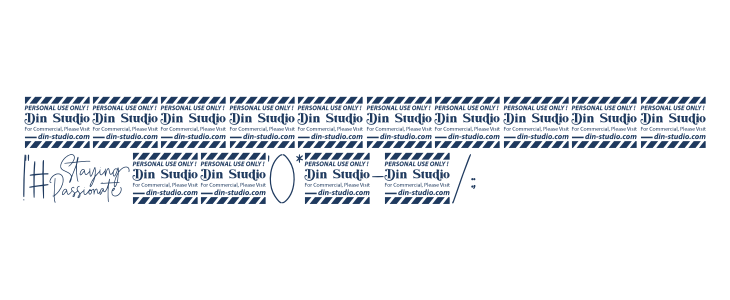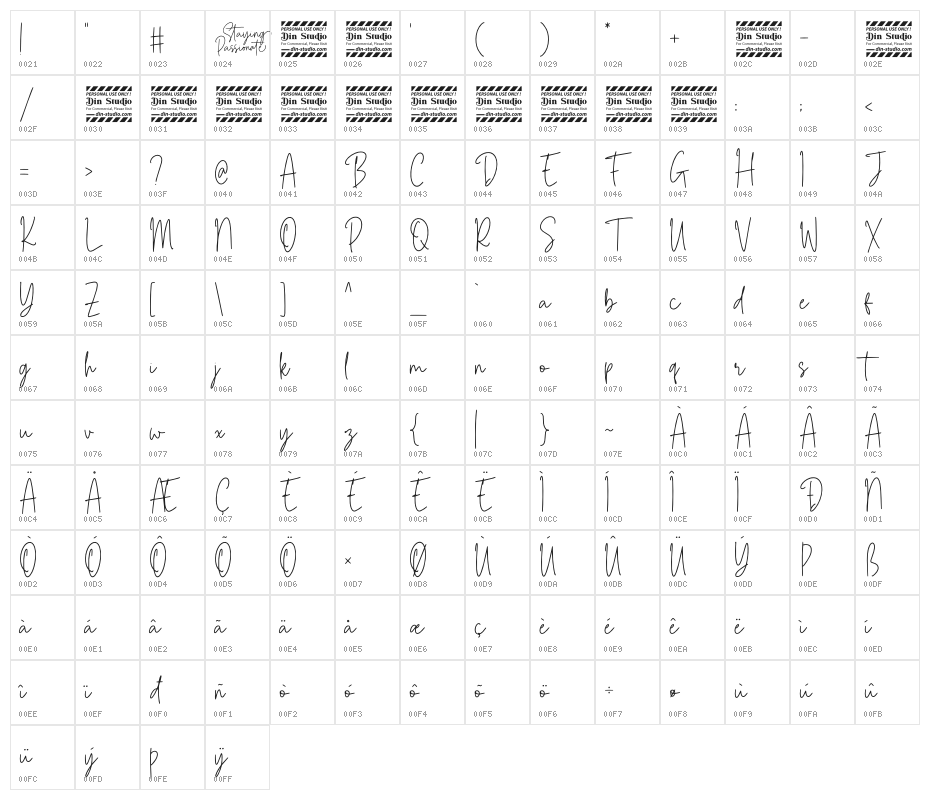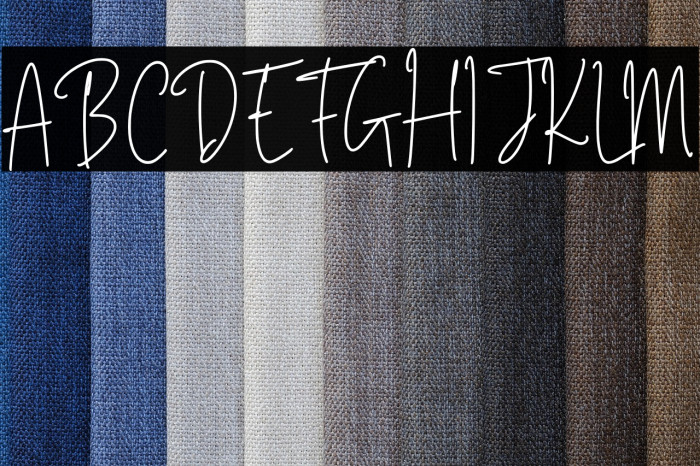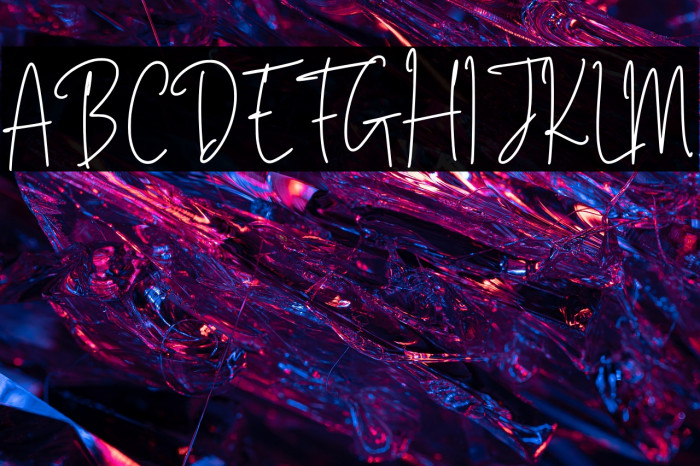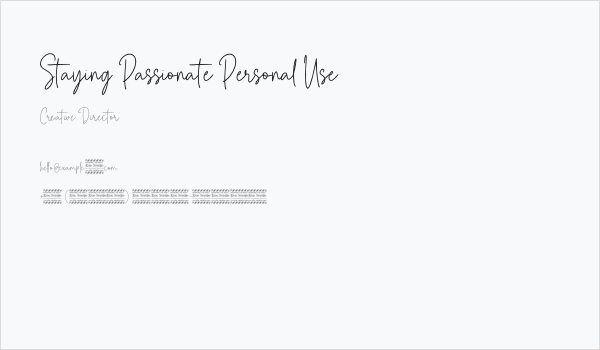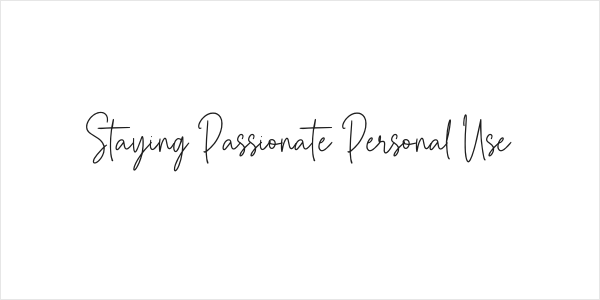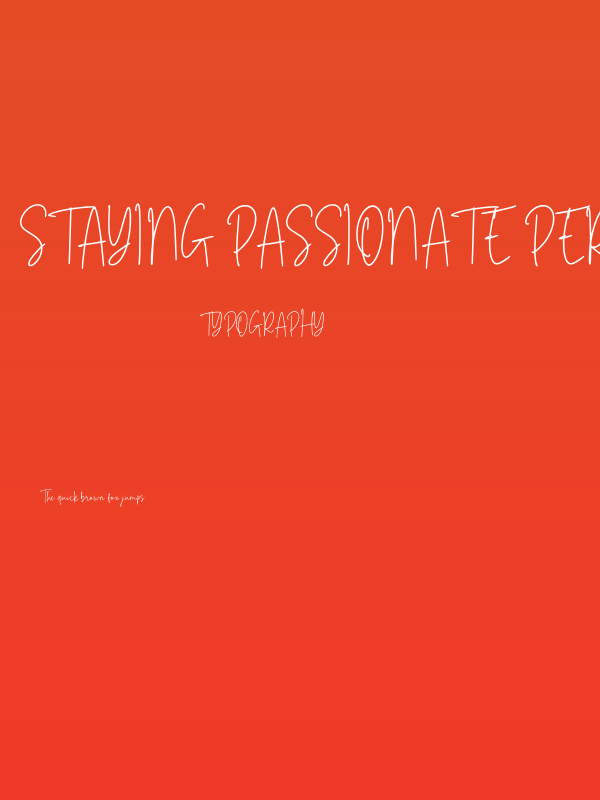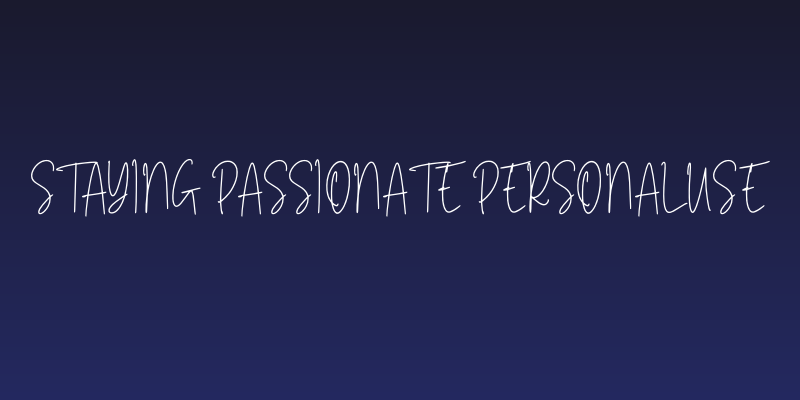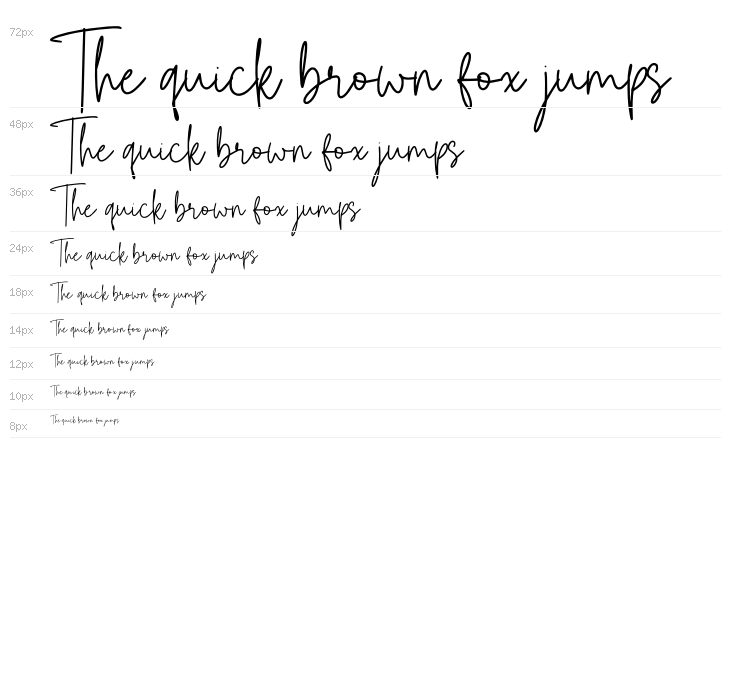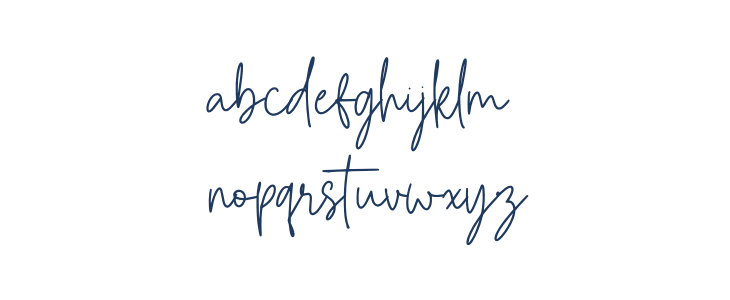
Staying Passionate Personal Use Font
Staying Passionate Personal Use Description
This font features a lively and expressive handwritten style, characterized by its fluid and dynamic strokes. The uppercase letters are tall and slightly narrow, with a playful yet elegant flair. The lowercase letters maintain a consistent flow, enhancing the overall cohesiveness of the design. The font exudes a sense of personal touch and creativity, making it ideal for projects that require a humanistic and approachable feel. Its unique style is accentuated by varying line thicknesses, adding depth and interest to the text. The font's informal yet sophisticated appearance makes it versatile for various design applications.
| Use Case | Logos, Headlines, Personal projects |
| Proposed Projects | Ideal for greeting cards, invitations, personal branding, and creative projects that require a humanistic touch. |